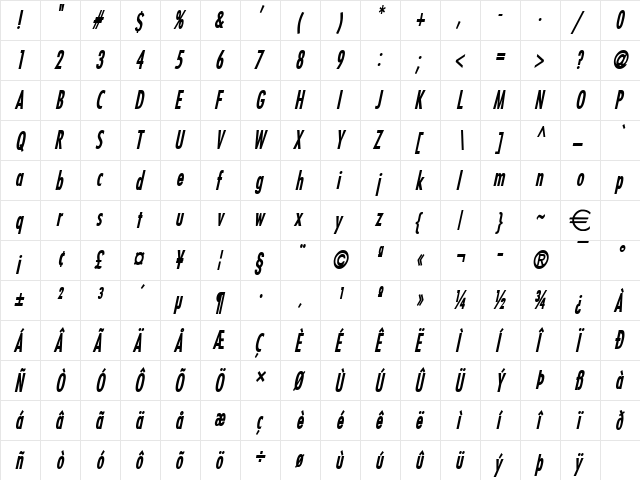
FujiThin BoldItalic
Design Context for FujiThin Typeface
FujiThin takes a measured approach to typography — its balanced proportions and neutral character make it a reliable workhorse for both digital and print work. The slanted form adds forward momentum and visual energy. Its bold stroke weight gives it real presence on the page.